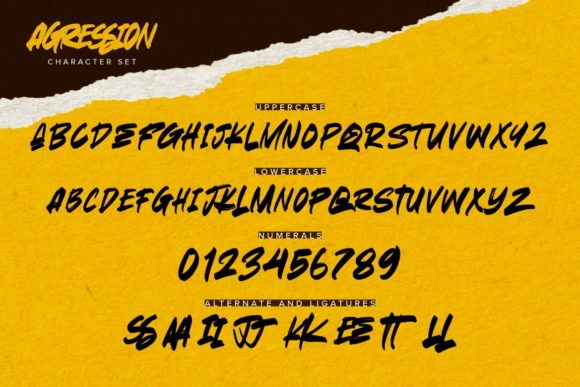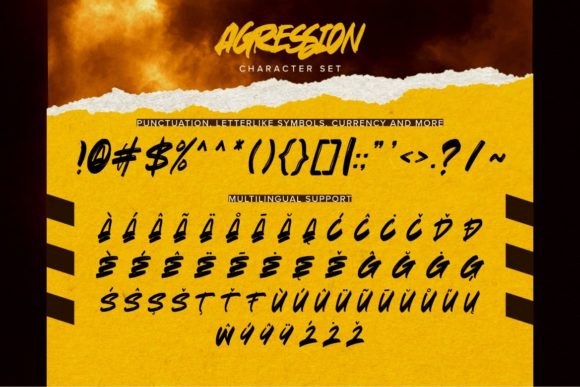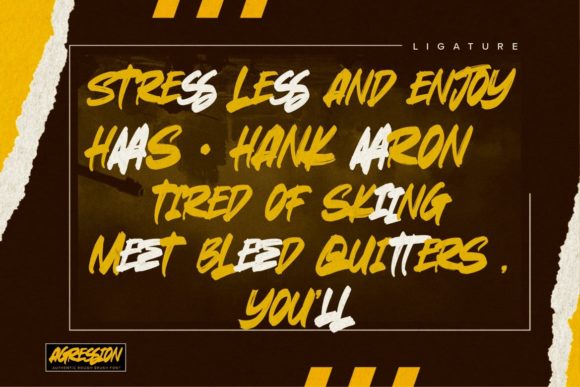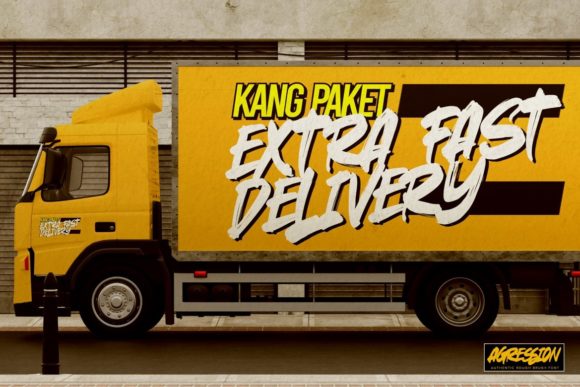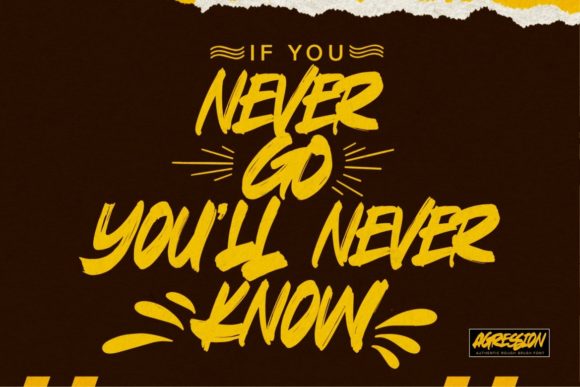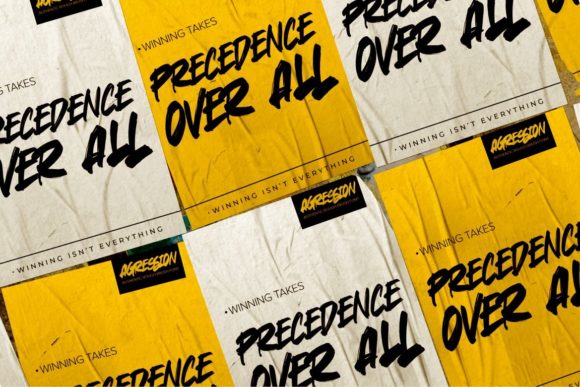
Agression Font: The Ultimate Choice for Creepy and Dramatic Designs
Are you looking for a font that can add a touch of horror and drama to your designs? Look no further than Agression Font. This creepy and dramatic looking display font is perfect for Halloween crafts, horror movie posters, t-shirts, and any other project that requires a spectacular look. In this article, we’ll take a closer look at Agression Font and explore its features, benefits, and uses.
What is Agression Font?
Agression Font is a display font designed to make a bold statement. Its creepy and dramatic look is inspired by horror movies, haunted houses, and other spooky themes. The font features bold, jagged lines and a distressed texture that gives it a rough, eerie feel. It’s perfect for designs that require a sense of tension, fear, or unease.
Features of Agression Font
Agression Font has several features that make it a great choice for designers and crafters. Some of its key features include:
• Creepy and dramatic look: Agression Font has a unique, eye-catching design that’s sure to grab attention.
• Distressed texture: The font’s distressed texture gives it a rough, worn look that’s perfect for horror-themed designs.
• Bold and jagged lines: The font’s bold, jagged lines add to its creepy and dramatic feel.
Uses of Agression Font
Agression Font is a versatile font that can be used in a variety of projects. Some of its most popular uses include:
• Halloween crafts: Agression Font is perfect for Halloween crafts, such as party invitations, decorations, and costumes.
• Horror movie posters: The font’s creepy and dramatic look makes it a great choice for horror movie posters and other promotional materials.
• T-shirts and apparel: Agression Font can be used to create bold, eye-catching designs for t-shirts, hoodies, and other apparel.
• Graphic designs: The font can be used in a variety of graphic designs, such as brochures, flyers, and posters.
Benefits of Using Agression Font
There are several benefits to using Agression Font in your designs. Some of the most significant advantages include:
• Unique and eye-catching design: Agression Font has a unique, eye-catching design that’s sure to grab attention.
• Versatile: Agression Font can be used in a variety of projects, from Halloween crafts to horror movie posters.
Tips for Using Agression Font
Here are some tips for using Agression Font in your designs:
• Use it sparingly: Agression Font is a bold font, so it’s best to use it sparingly to avoid overwhelming your design.
• Pair it with other fonts: The font can be paired with other fonts to create a unique and interesting design.
• Experiment with different colors: Agression Font can be used with a variety of colors to create a different look and feel.
• Use it in combination with images: The font can be used in combination with images to create a bold and eye-catching design.
Agression Font is a creepy and dramatic looking display font that’s perfect for Halloween crafts, horror movie posters, t-shirts, and any other project that requires a spectacular look. Its unique and eye-catching design, distressed texture, and bold, jagged lines make it a great choice for designers and crafters. With its ease of use, versatility, and high-quality design, Agression Font is a great addition to any design project.